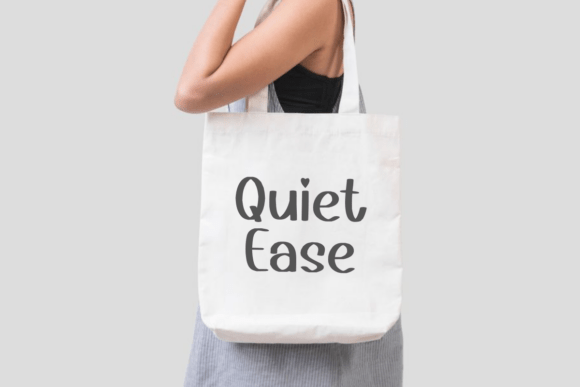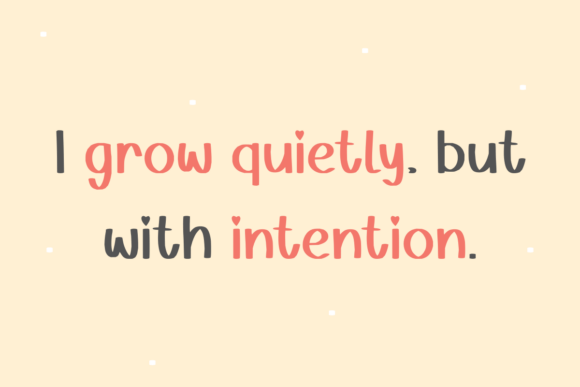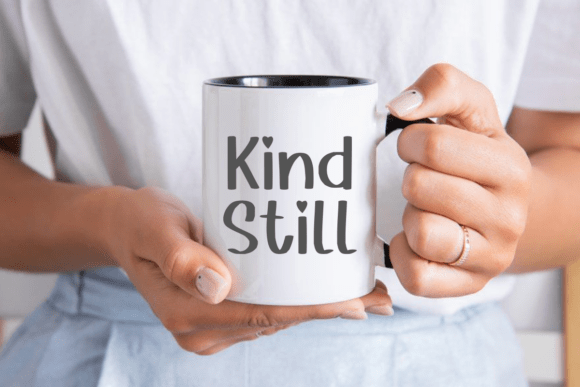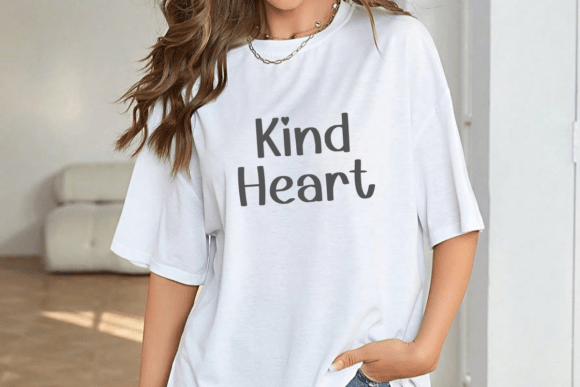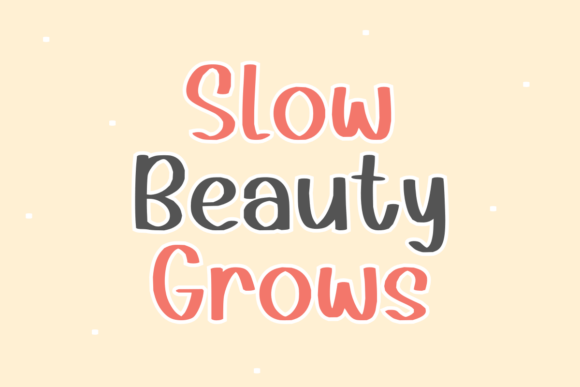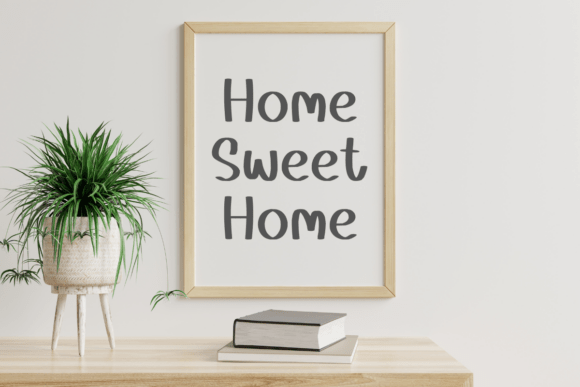
Discover the Joy of Handwritten Style with Amazing Sunshine Font
Who hasn’t felt that rush of excitement when creating something with their own hands? The smell of fresh paper, the scratch of a pen on a page, and the satisfaction of bringing an idea to life – these are the moments that make crafting truly special. And what’s at the heart of many of these projects? A beautiful, handwritten font that adds a personal touch.
Enter the Amazing Sunshine Font, a delightful sans serif handwriting font that captures the essence of a warm, friendly, and natural look. Designed with simplicity and elegance in mind, this font is perfect for crafters, designers, and moms who love creating adorable and personalized projects. With its smooth curves and easy-to-cut design, the Amazing Sunshine Font is a valuable addition to any creative’s toolkit.
Amazing Sunshine Font Key Features
- Unique Characteristics: The Amazing Sunshine Font features a unique, hand-drawn design with a warm and sunny feel, making it perfect for creating a cheerful and optimistic atmosphere in various design projects.
- Font Style: The Amazing Sunshine Font is available in both Regular and Bold styles, allowing designers to add emphasis and variety to their typography.
Designer Review: Amazing Sunshine Font
I recently had the chance to work with the Amazing Sunshine Font, and I must say it’s a mixed bag. Here’s my honest review.
- Unique aesthetic: The font’s sunny, hand-drawn feel is perfect for branding and packaging projects that need a playful touch.
- Legibility: Despite its quirky design, Amazing Sunshine is surprisingly easy to read, even at smaller font sizes.
- Customization options: The font comes with a range of alternate characters and ligatures that can help you add some personality to your designs.
- Lack of versatility: Amazing Sunshine is best suited for casual, creative projects. It may not be the best choice for more formal or technical applications.
- Font size limitations: While the font is legible at smaller sizes, it can start to lose its charm and become difficult to read at very small sizes.
- Compatibility issues: Some users have reported compatibility problems with certain font editors or software.
Overall impression
Overall, I’d say Amazing Sunshine Font is a solid choice for designers looking for a unique, playful font. While it may have some limitations, its customization options and legibility make it a great option for creative projects. Just be sure to use it in contexts where its quirks will shine, rather than trying to force it into more formal or technical applications.
Getting the Most Out of the Amazing Sunshine Font
Use the Amazing Sunshine Font to create visually appealing and engaging designs.
Pair it with bright and cheerful colors to enhance its sunny feel.
Experiment with different font sizes and styles to create a unique look.
The Amazing Sunshine Font is perfect for:
Summer-themed designs and projects.
Children’s book illustrations and graphics.
Food and drink branding and packaging.